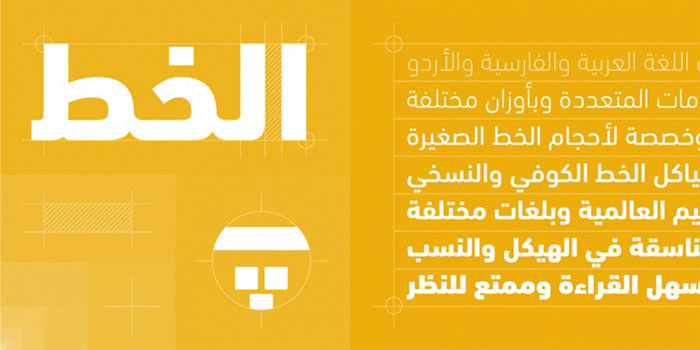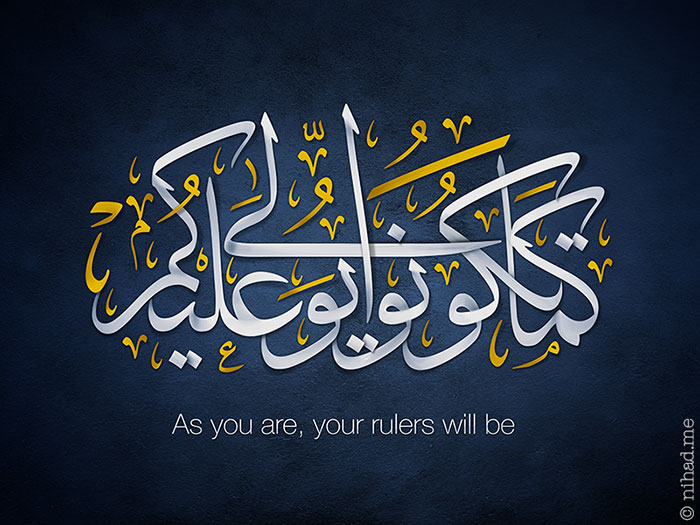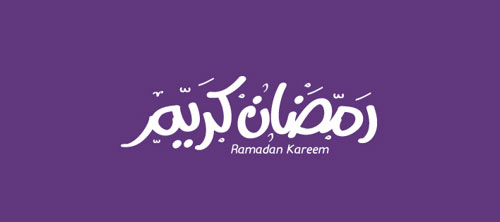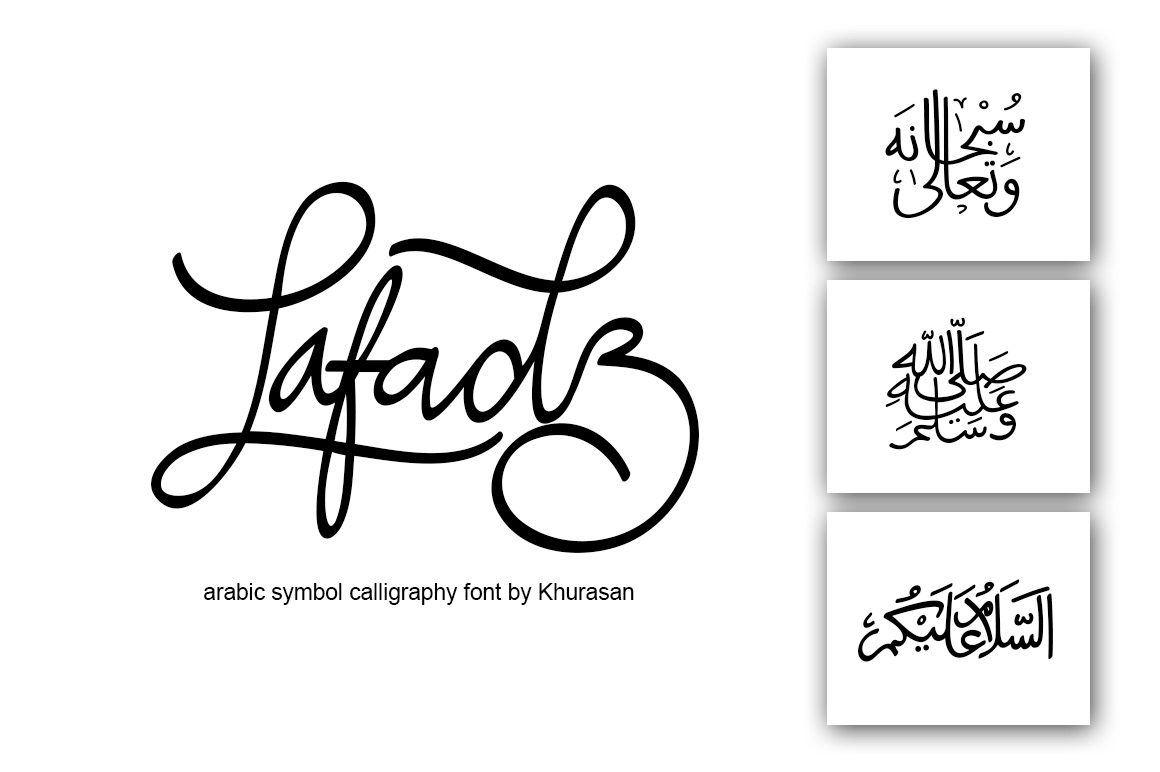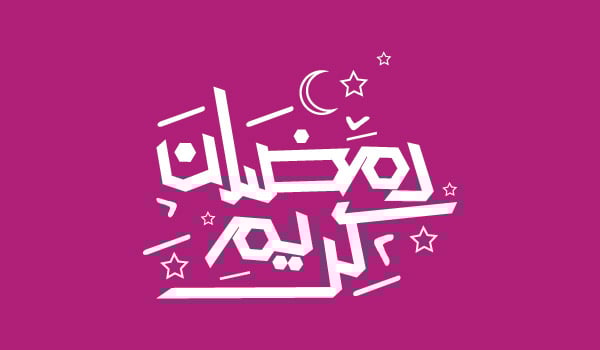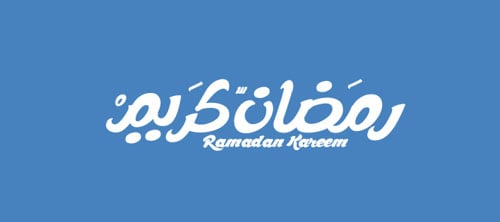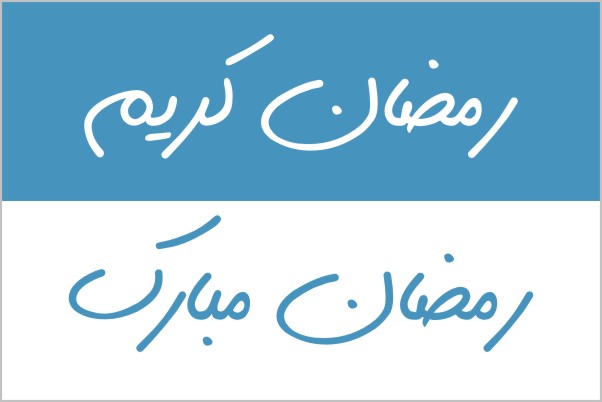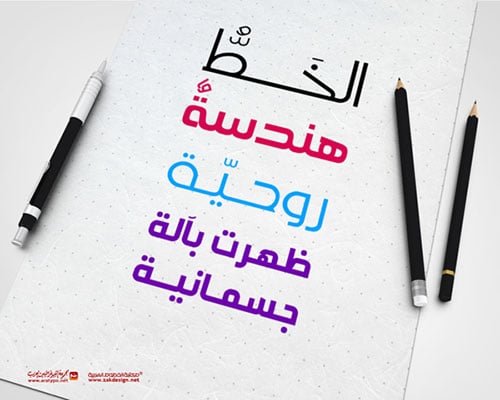
50 Beautiful Free Arabic Calligraphy Fonts 2014 Choosing an apt font for the desire document has become a difficult thing. The height of calligraphy was reached in the middle age where monks developed the narrow writing style called gothic allowing more words to fit on a single line as paper was expensive at the time.
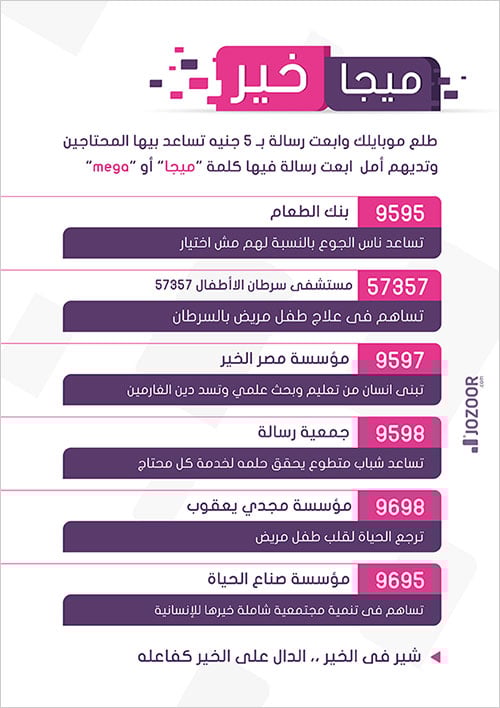
50 Beautiful Free Arabic Calligraphy Fonts 2014
Ae AlBattar is free to download and install on your computer. Looking for calligraphy font generator you can download the font you like for free and then try it your self on your PC with Adobe Photoshop or Illustrator. Calligraphy is an ancient writing technique using flat edged pens to create artistic lettering using thick and thin lines depending on the direction of the stroke.
This free Arabic font template includes regular and flat faces the fonts are stylish and will look great on posters and websites. Arabic fonts because of their distinctiveness and decorative appeal have driven the world of fonts and graphic design into a tizzy. Find that right font that fits your projects can be like finding a needle in a haystack.